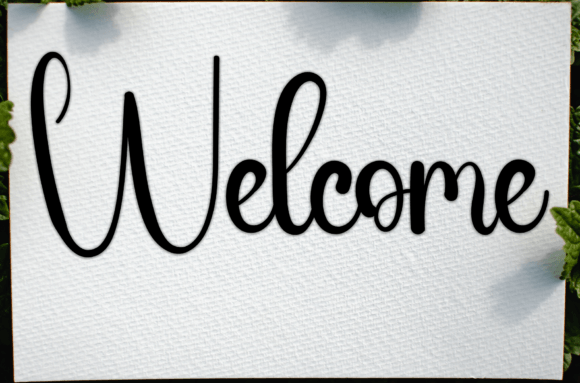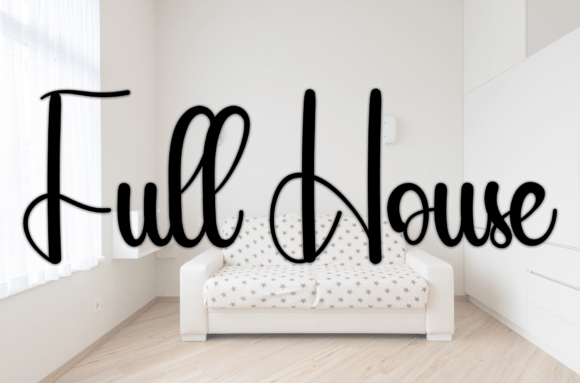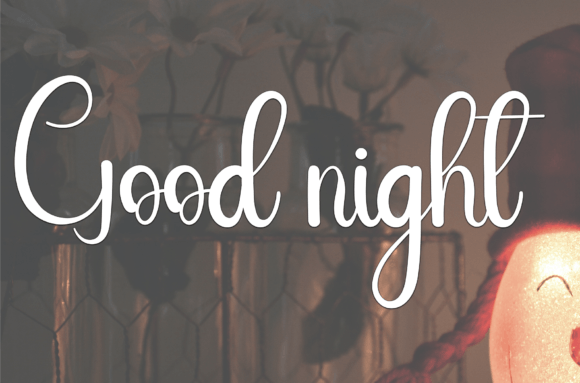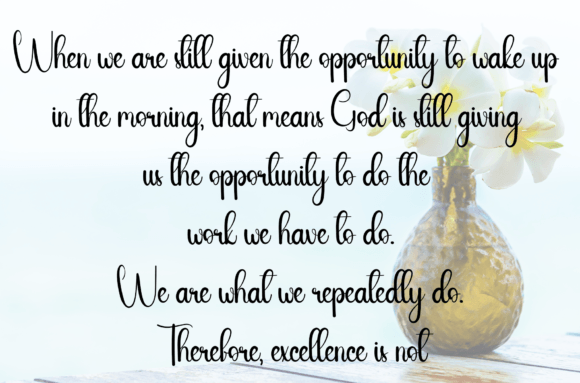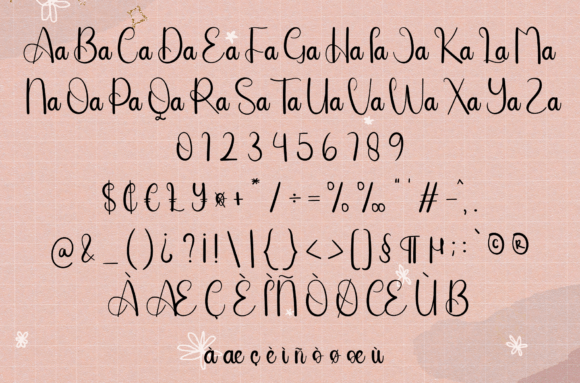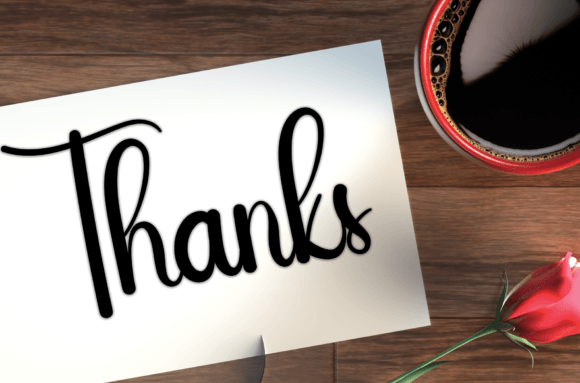
Welcome Valentine Font
About Welcome Valentine Font
Welcome Valentine font is a warm and friendly handwritten typeface thoughtfully crafted to become a favorite in your font collection. Its inviting and charming style brings a personal, handcrafted feel that fits beautifully with a variety of creative projects. Whether you are designing invitations, branding, social media graphics, or more, Welcome Valentine font will help bring your ideas to life with a heartfelt touch.
Warm and Inviting Handwriting Style
The appeal of Welcome Valentine font comes from its smooth, flowing strokes and approachable letterforms. The font offers a natural yet polished look, making it easy to read while adding a soft, personal touch to your designs. Its style combines modern warmth with timeless charm, making it suitable for many different uses.
Versatile Applications of Welcome Valentine Font
Welcome Valentine fon works well across a broad range of projects, including:
• Wedding invitations and greeting cards
• Brand logos and business stationery
• Social media posts and marketing materials
• Personalized notes and creative lettering
• Flyers, posters, and printed ads
Its versatility ensures that Welcome Valentine fon looks great in both print and digital formats, providing consistent warmth and friendliness.
Adding Personality and Warmth to Your Designs
Using Welcome Valentine fon infuses your designs with warmth and a personal feel. The handwritten style helps establish an emotional connection with your audience, making your messages feel genuine and heartfelt. This font’s friendly vibe enhances your projects with a charming, approachable look.
Reasons to Choose Welcome Valentine Fon
• Warm and friendly handwritten style
• Clear and readable characters
• Perfect for various creative projects
• Adds warmth and personality
• Suitable for print and digital media
Final Thoughts on Welcome Valentine Font
In summary, Welcome Valentine fon is a friendly and inviting handwritten typeface ideal for wedding invitations, branding, social media, and more. Its warm and charming style makes it a valuable choice for designers seeking to add personality and elegance to their work.